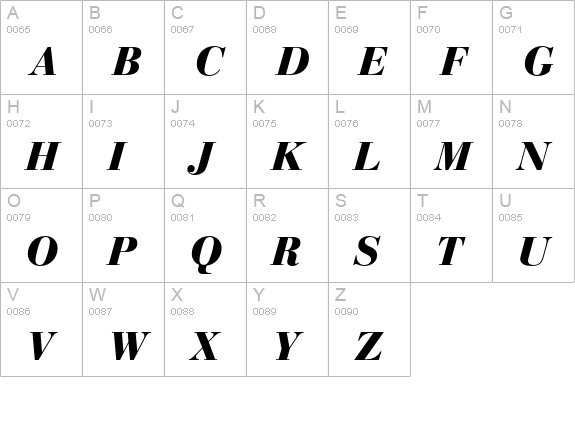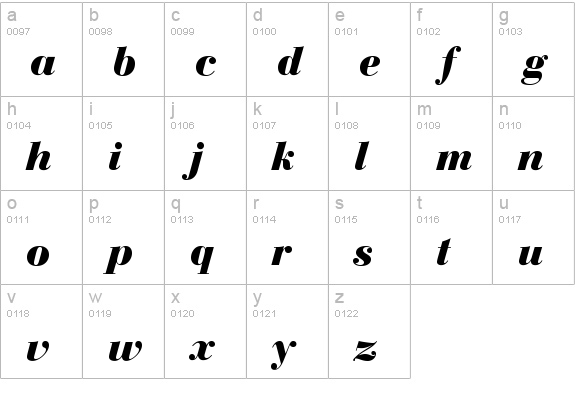
Bauer Bodoni Std 2 Black Italic is a maximum-weight, dramatic, italic variant in the Bauer typeface family \xE2\x80\x94 well suited to maximum-impact headlines, posters, and packaging.
Bauer Bodoni Std 2 Black Italic is a striking and elegant typeface that exudes sophistication and style. With its bold weight and slanted design, this font is perfect for making a bold statement in any design project. The sleek and modern look of Bauer Bodoni Std 2 Black Italic makes it ideal for use in headlines, posters, branding, and editorial designs. The distinct characteristics of this font, such as the sharp serifs and sleek curves, add a touch of luxury and refinement to any text. Whether you're looking to create a high-impact headline or add a touch of class to your branding, Bauer Bodoni Std 2 Black Italic is sure to impress. Best of all, Bauer Bodoni Std 2 Black Italic is available for free download at FontsMarket.com. So, you can easily access this stunning font and incorporate it into your designs without any hassle. Don't miss out on the opportunity to enhance your projects with the timeless beauty of Bauer Bodoni Std 2 Black Italic – download it today and take your design to the next level!